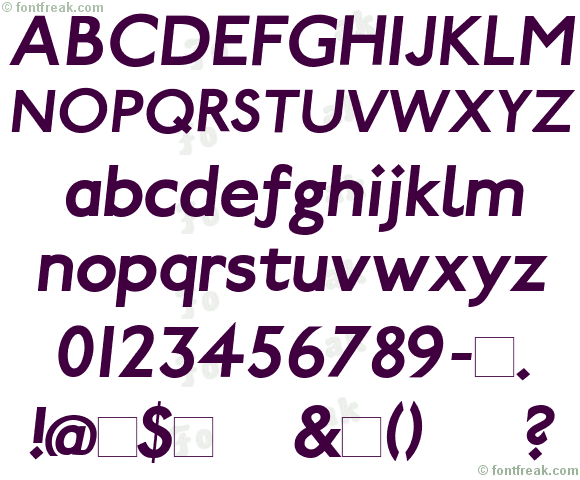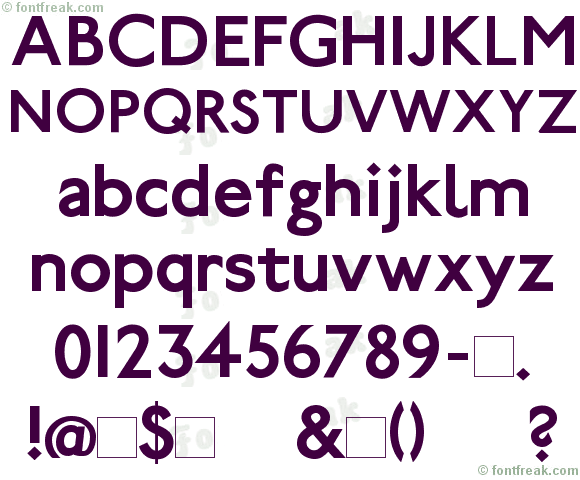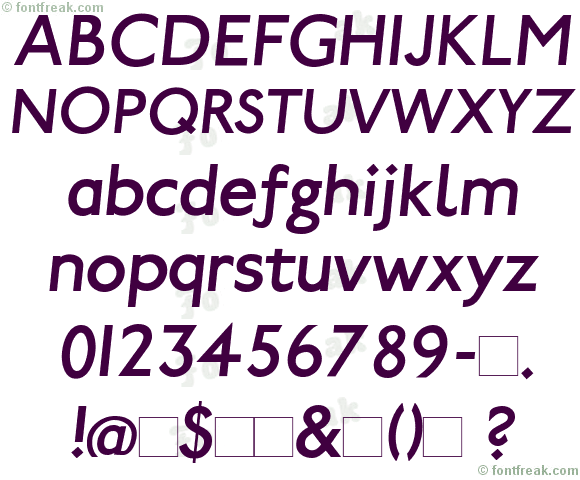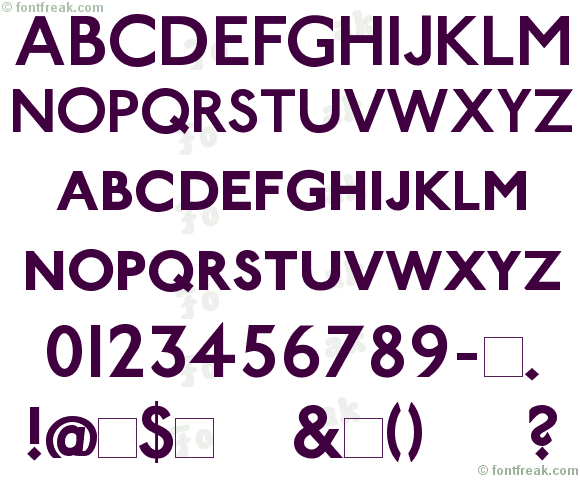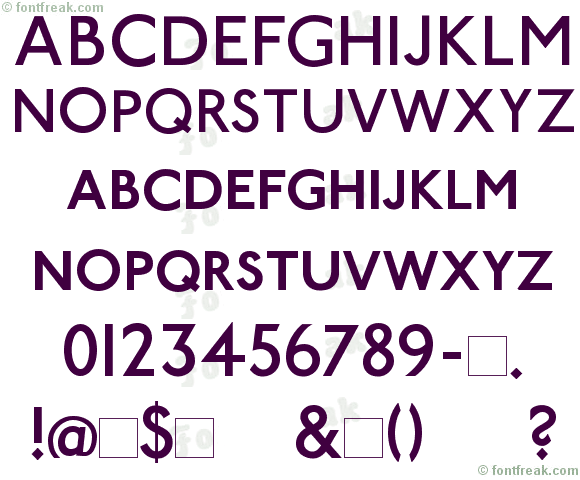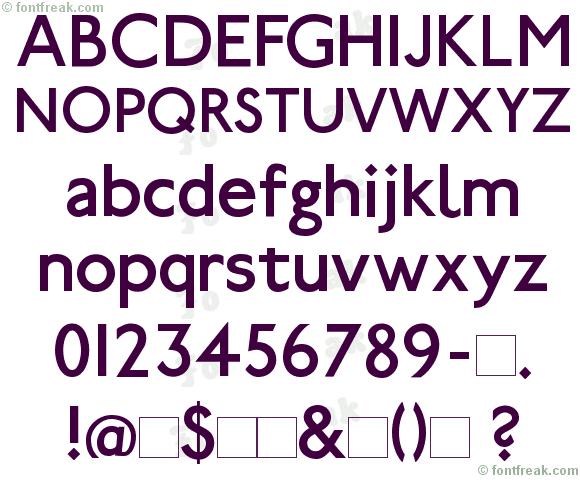
Paddington Bold
PaddingtonSC
Paddington Bold Italic
PaddingtonSC Bold
Paddington Italic
Paddington
The Paddington font by S.g. Moye is a striking display typeface characterized by its bold and impactful design. Released in February 1997, this freeware font combines modern aesthetics with a touch of classic elegance, making it a versatile choice for various creative projects. The font features a strong stroke weight and a balanced contrast that enhances readability while maintaining a visually engaging style. Its generous spacing allows for clarity, making it suitable for both headings and body text.
With its unique decorative elements, Paddington captures attention without overwhelming the viewer. This makes it an ideal choice for a range of applications, including wedding invitations that require a touch of sophistication, movie posters that aim to create an eye-catching impact, and restaurant menus looking to convey a modern yet inviting atmosphere. Additionally, graphic designers and content creators can leverage this font for branding materials, social media graphics, and promotional items that need to stand out.
The target audience for the Paddington font includes graphic designers, small business owners, and anyone looking to create visually appealing content. Its combination of boldness and elegance allows for creativity while ensuring that the message remains clear and compelling.
What truly sets the Paddington font apart is its ability to blend contemporary design with timeless appeal. This makes it an excellent choice for those seeking a font that can elevate their projects while remaining accessible. Whether you’re designing for print or digital platforms, the Paddington font free download offers a unique opportunity to enhance your creative toolkit with a typeface that is both stylish and functional.